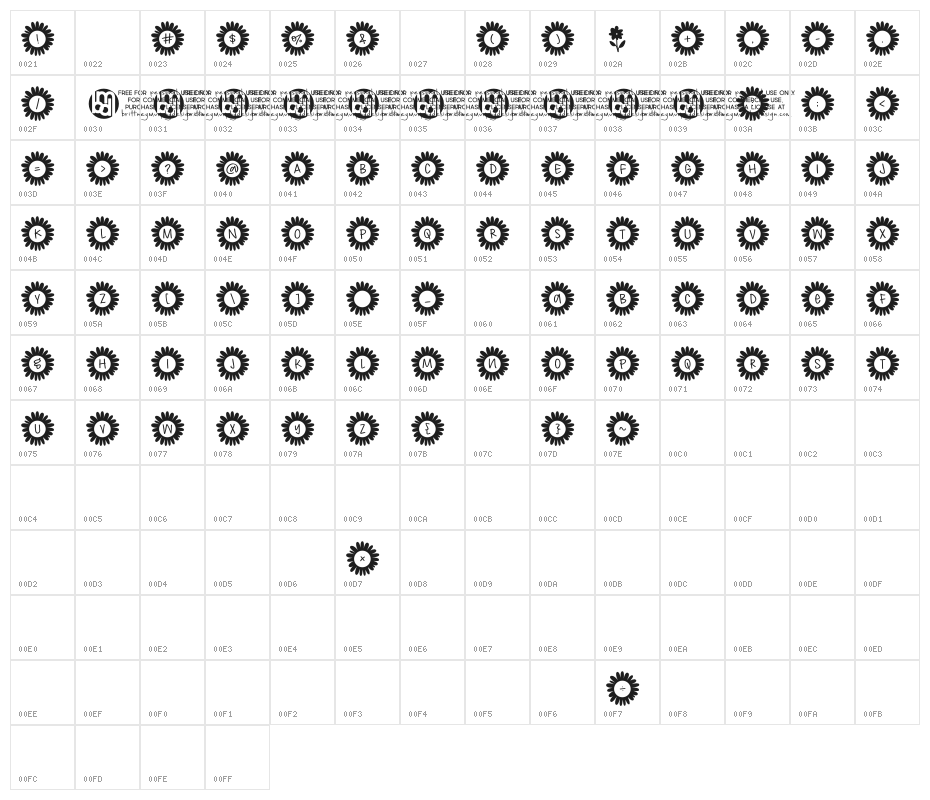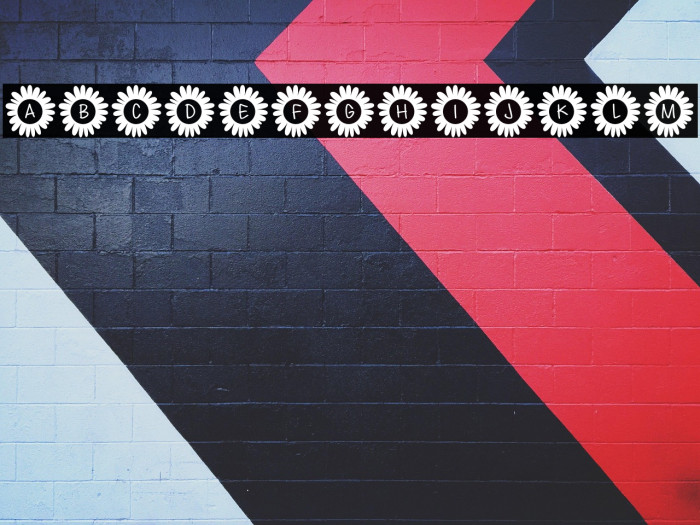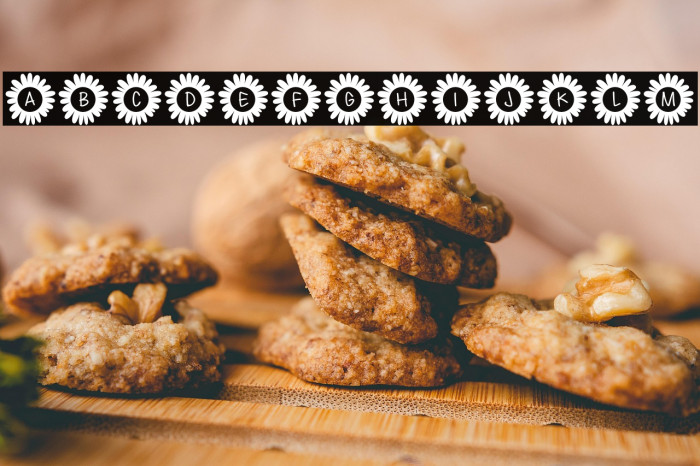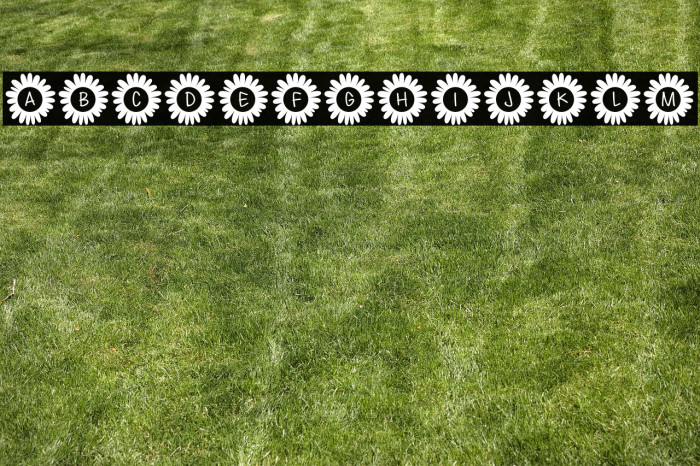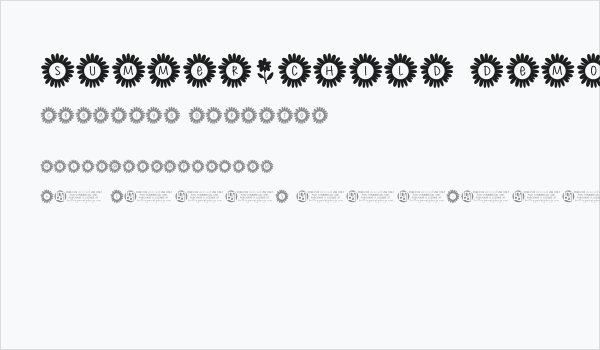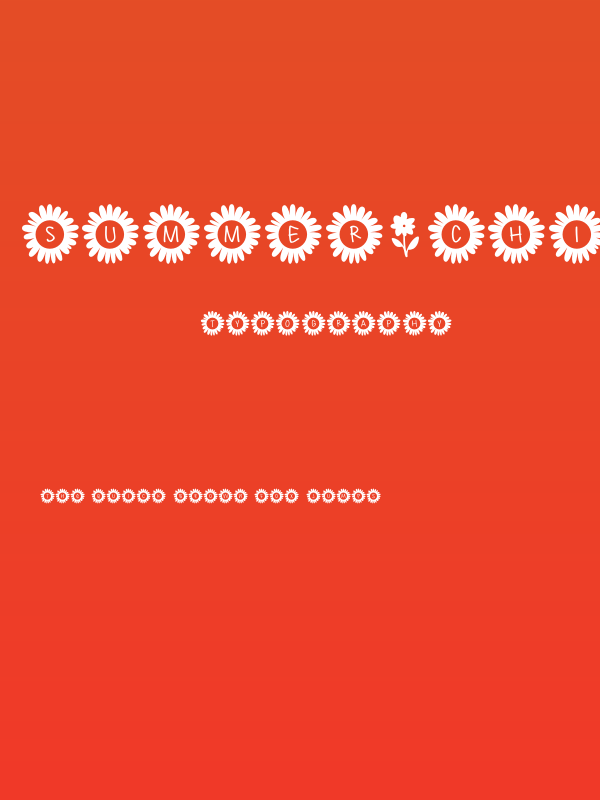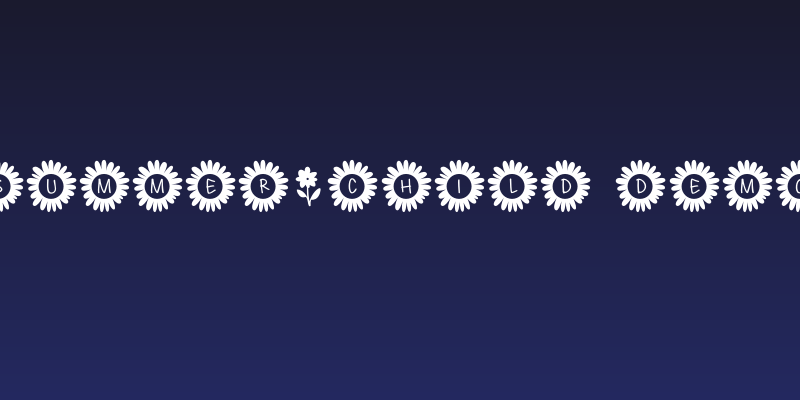
Summer*Child Demo Font
Summer*Child Demo Description
This playful and decorative font features each character encased within a sunflower-like design, creating a whimsical and cheerful appearance. The letters are bold and clear, making them easily readable despite the intricate floral border. This unique style combines a sense of fun with a touch of nature, making it ideal for projects that require a lively and eye-catching typeface. The font includes both uppercase and lowercase letters, numbers, and a selection of special characters, all maintaining the consistent sunflower motif. Its distinct design is perfect for adding a creative flair to any text.
| Proposed Projects | Ideal for children's book covers, greeting cards, posters, and any project needing a fun, nature-inspired theme. |